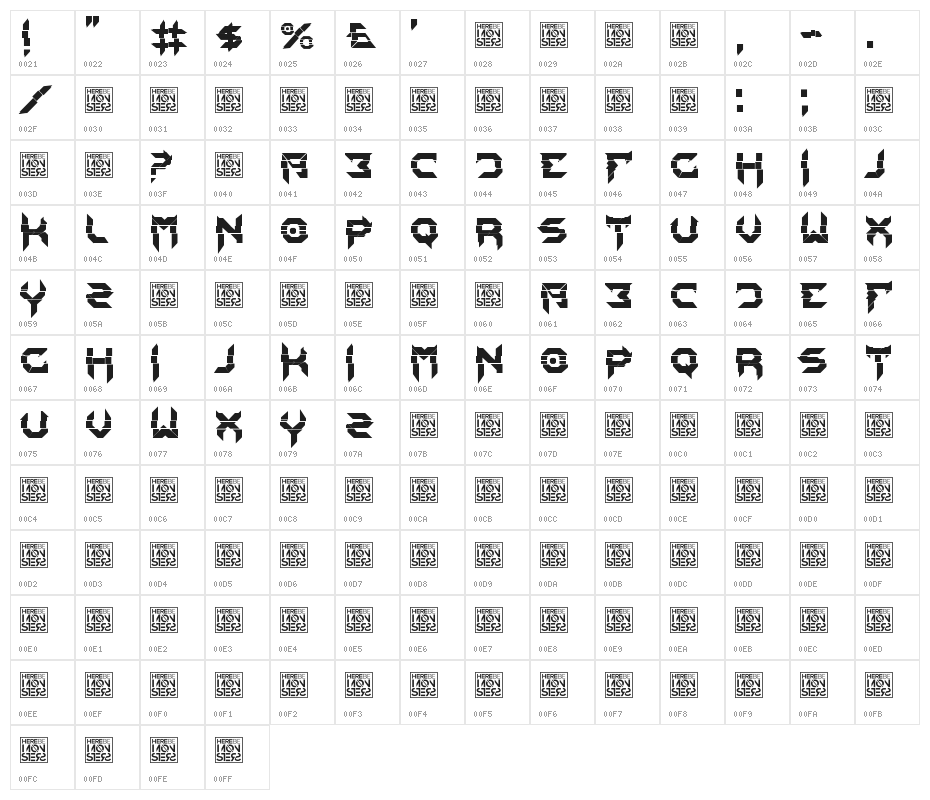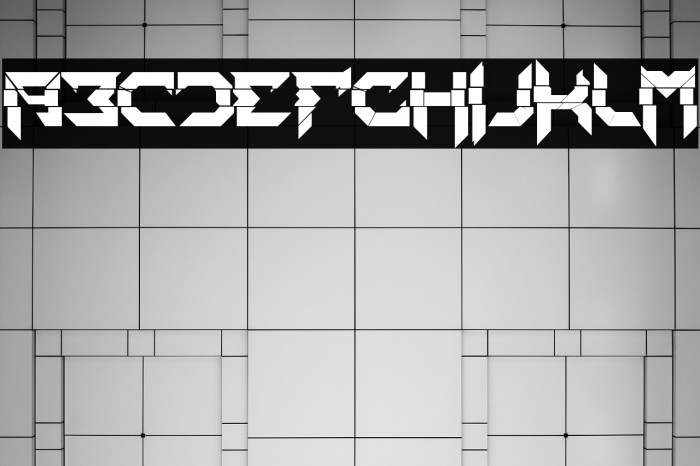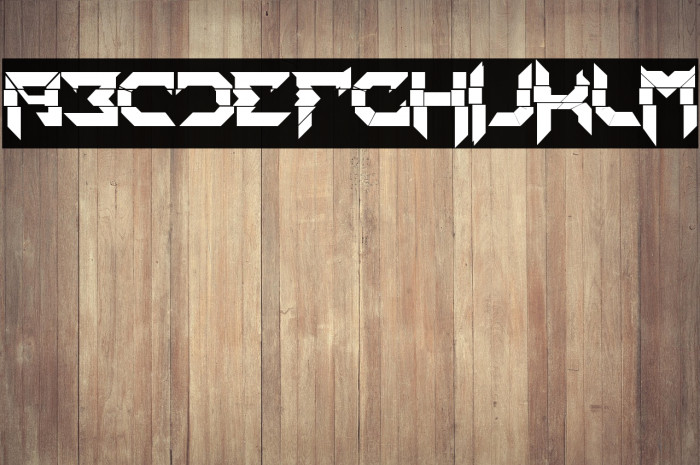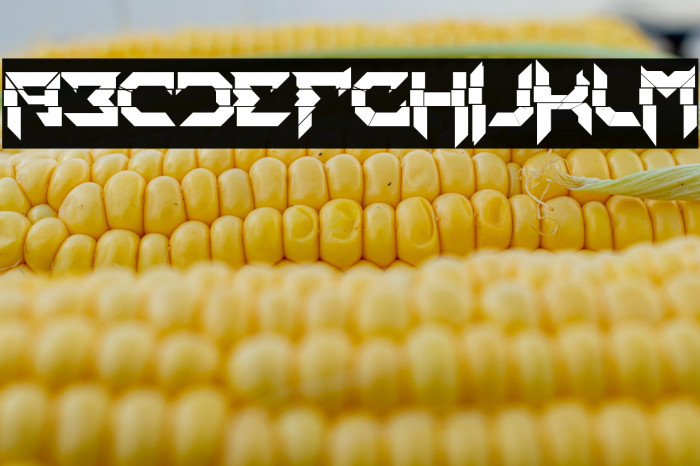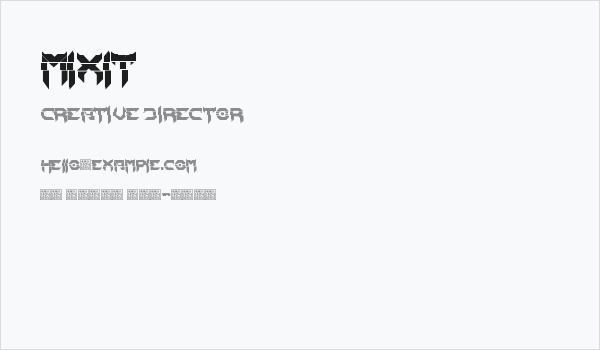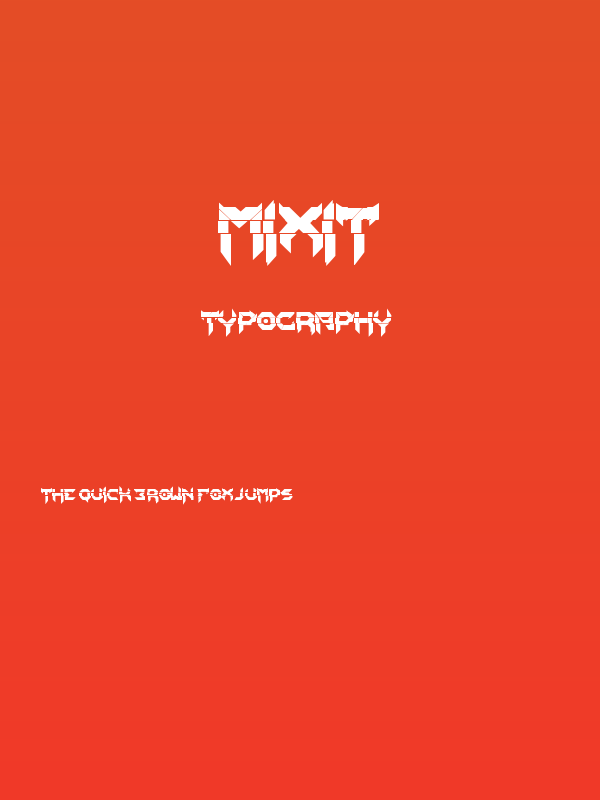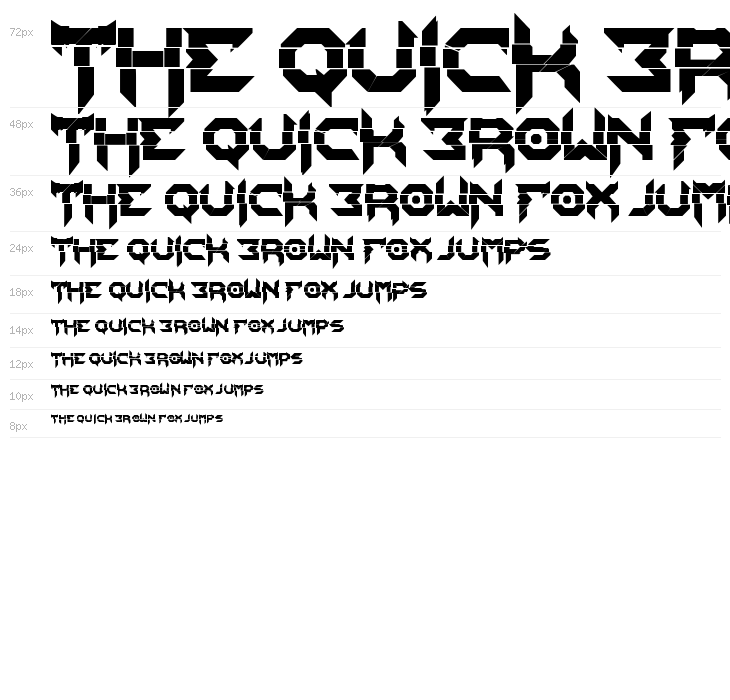
This font features a bold and geometric design with sharp angles and a futuristic aesthetic. The characters are constructed with a combination of solid and fragmented shapes, creating a dynamic and edgy appearance. The uppercase letters are particularly striking, with a consistent use of angular cuts and pointed edges. The lowercase letters maintain the same stylistic elements, ensuring a cohesive look across different text cases. Numbers and special characters are designed to match the overall theme, adding to the font's versatility. The unique style makes it suitable for projects that require a modern and bold statement.
Overall StyleFuturistic, Edgy
Proposed ProjectsIdeal for sci-fi themed designs, video game titles, tech branding, and modern posters.